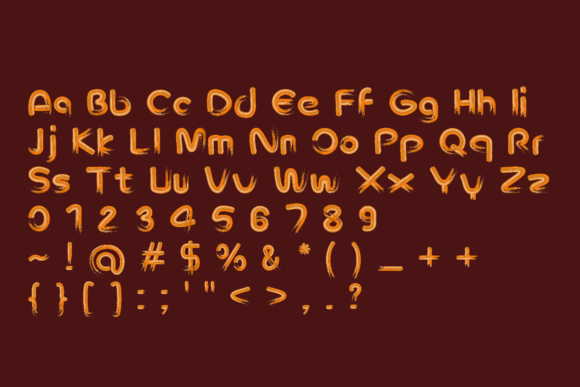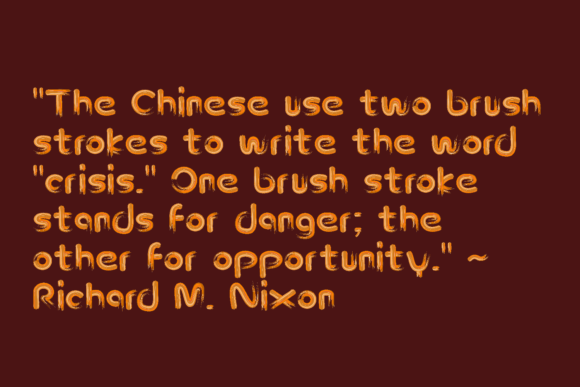
Introduction to Fourcolor Font
Have you ever dreamed of having a font with a colorful brush texture.
You can have it now Fourcolor is one of those unique fonts, with a brush-style and matching colors, creating a powerful appeal.
Key Features of Fourcolor Font